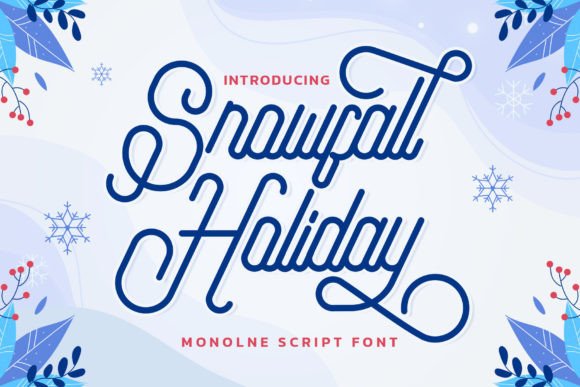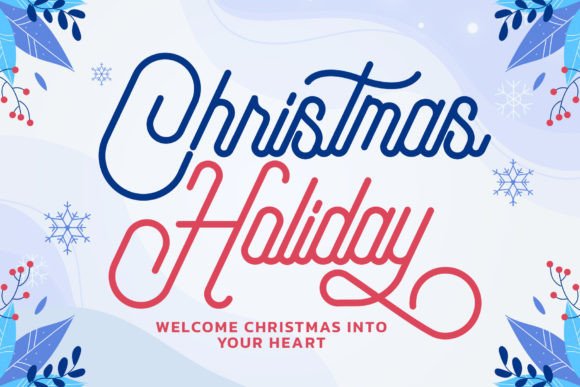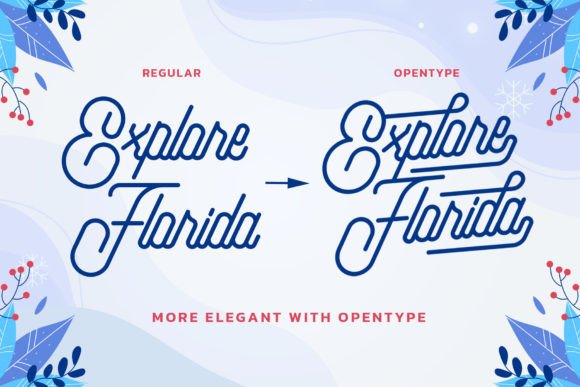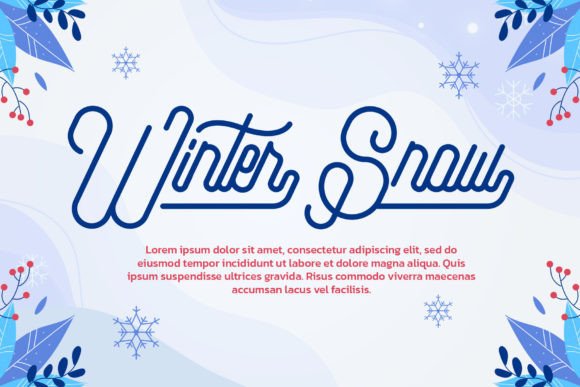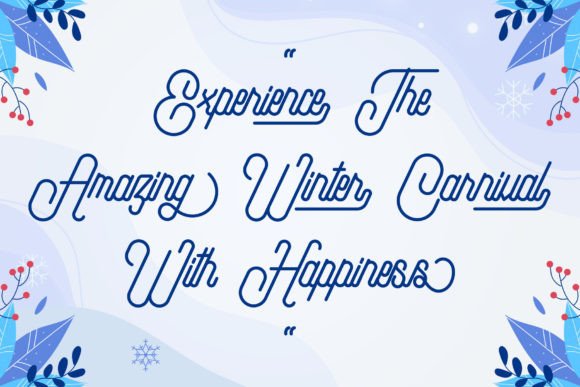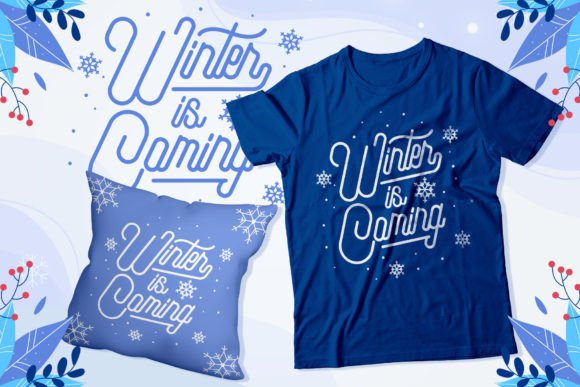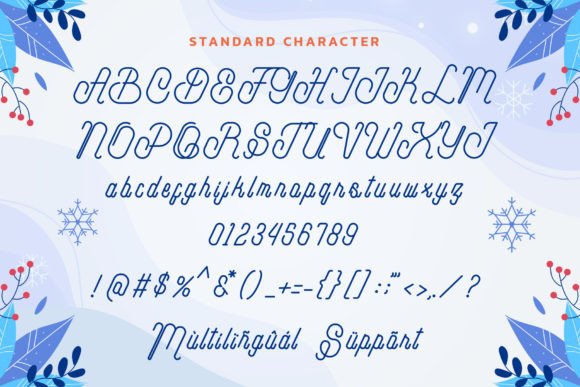
About Snowfall Holiday Font
Snowfall Holiday is a lovely and cute Monoline Script Font. It is suitable for winter and kids’-related products, t-shirts, stickers, cover books, children’s books, social media posts, and much more!Sun Flower is PUA encoded, which means you can access all of the glyphs and swashes with ease!